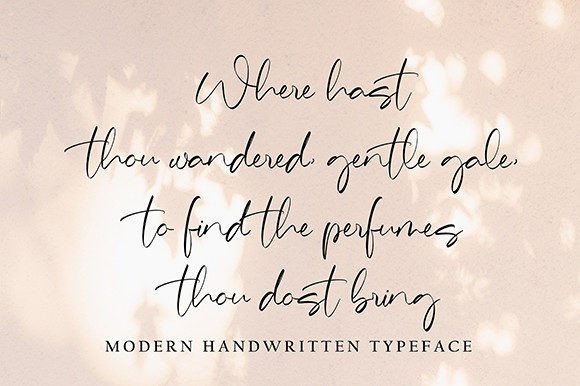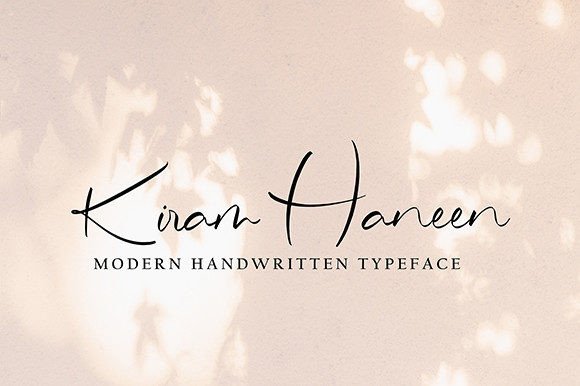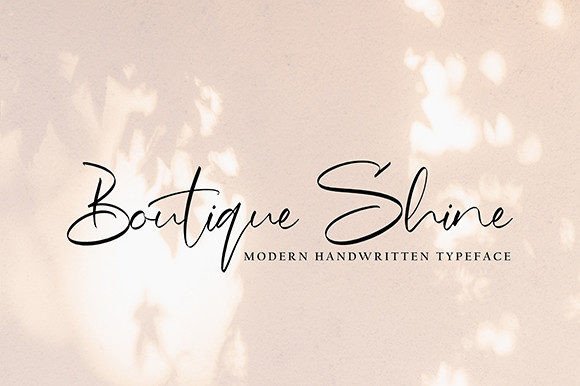
Introduction to Farm Enthok Font
Farm Enthok is an elegant script font with a contemporary atmosphere and impeccable form, inspired by timeless classic calligraphy.
Not too thin and not too thick, balanced and varied, this font was designed to enhance the beauty of your projects .